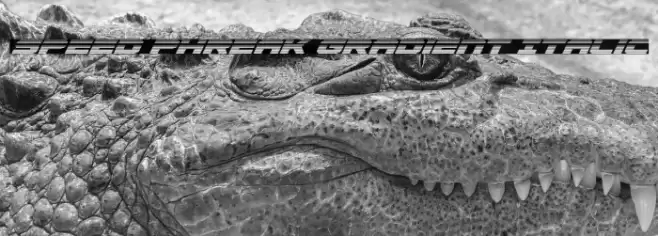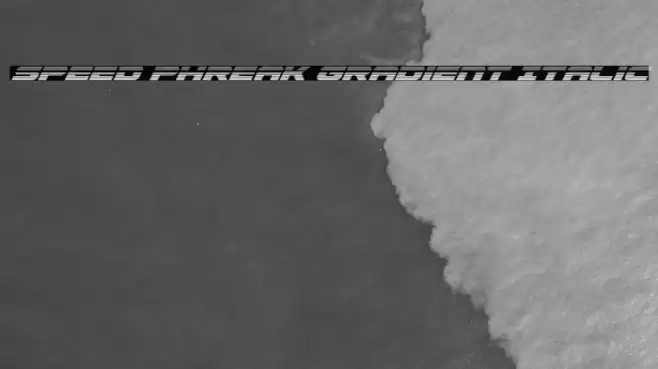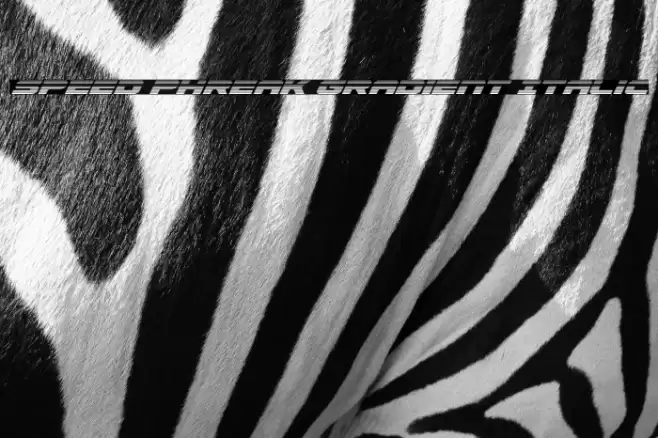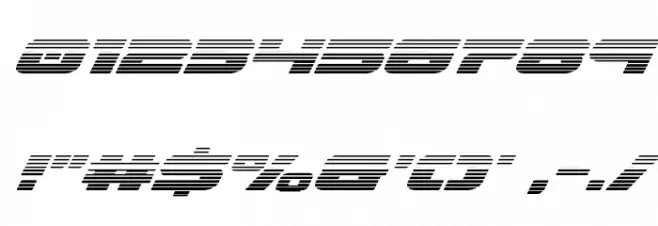
Speed Phreak Gradient Italic Font
Speed Phreak Gradient Italic Description
This font features a dynamic and futuristic design with a distinct gradient effect that gives the impression of speed and motion. The italicized letters are composed of horizontal lines that create a sense of movement, making it ideal for projects that require a modern and energetic feel. The uppercase and lowercase letters, along with numbers and special characters, maintain a consistent style that emphasizes sleekness and agility. This font is perfect for use in digital media, sports branding, and any creative project that aims to convey a sense of innovation and forward-thinking.
A dynamic, gradient italic font with a futuristic and speedy appearance from Uncategorized fonts.
- Proposed Projects: Ideal for sports branding, digital media, tech-related designs, and innovative advertising campaigns.